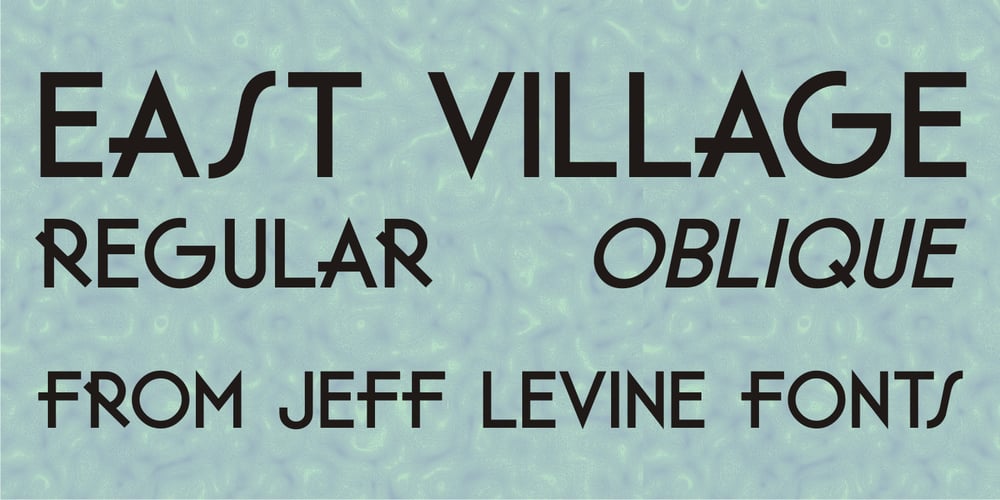
East Village JNL Font Family was designed by Jeff Levine and published by Jeff Levine. East Village JNL contains 2 styles and family package options. The Federal Art Project division of the WPA (Works Progress Administration) employed numerous artists, musicians, actors and other creative sorts in a effort to help many survive the Great Depression of the 1930s. One of the posters created by this project was for a “Card Party and Barter Benefit” with proceeds going toward the Nassau Art Teachers Benefit Fund – taking place at the Coca-Cola plant in Rockville Centre, New York. East Village JNL was derived from this poster, and is available in both regular and oblique versions.